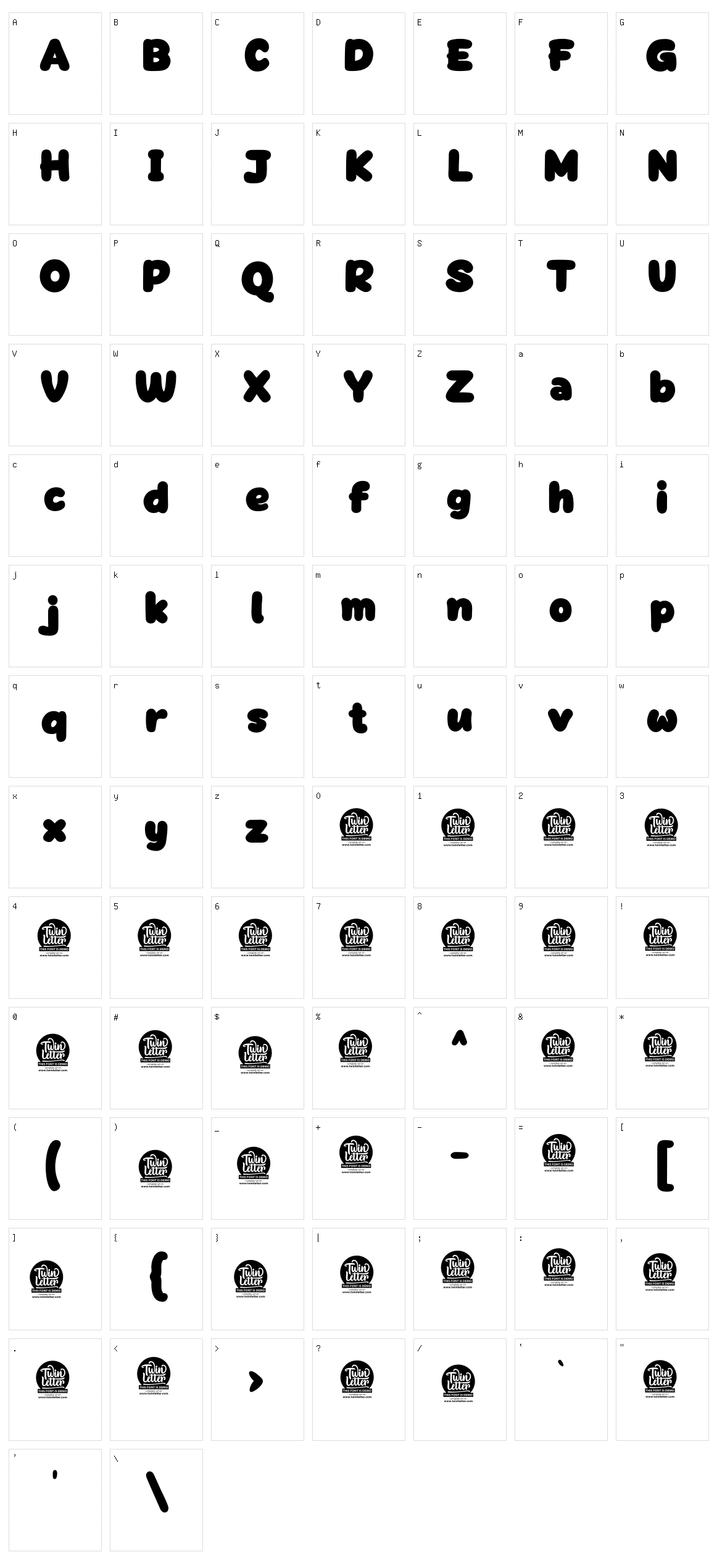
The free font Weroth is carefully designed by twinletter, showcasing a thoughtful balance of creativity and usability and falls under the Cartoon font style. When you download the ZIP file, it contains only 97.37 KB of font files, making it lightweight and quick to download. Please review the license details below to understand permitted usage and distribution rights. If license information is not available, we recommend using this font for personal projects only or contacting the author directly for commercial usage permissions.